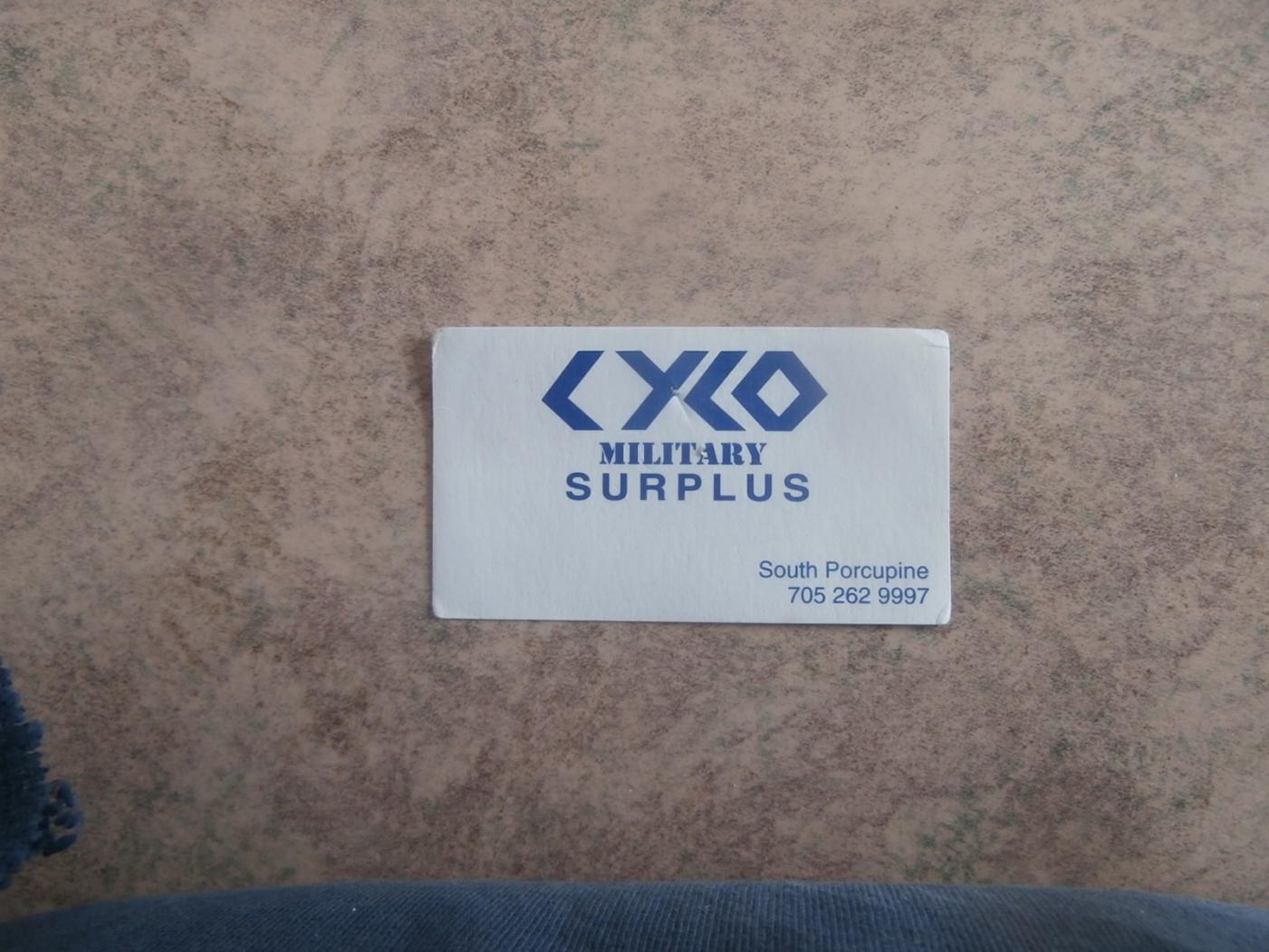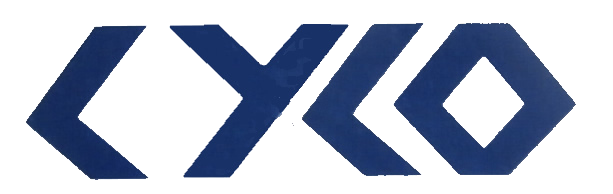
Need to ID this "Greek" font
I have found several that are similar but none have flat tops and bottoms.  Help?bizCard.png.14d71e75bdf9f294767831ce2bb05907.png
It's not actually as crude looking as it seems but, you maybe correct.P1090405.thumb.JPG.e170f35f46f12ea9b6e0b9bea1f18c64.JPG
I agree with Ralf—the logo appears to be custom/hand drawn.
Forget Fontstruct—import the first image you posted into Illustrator and auto trace it—the shapes are simple enough that you should get a decent recreation.